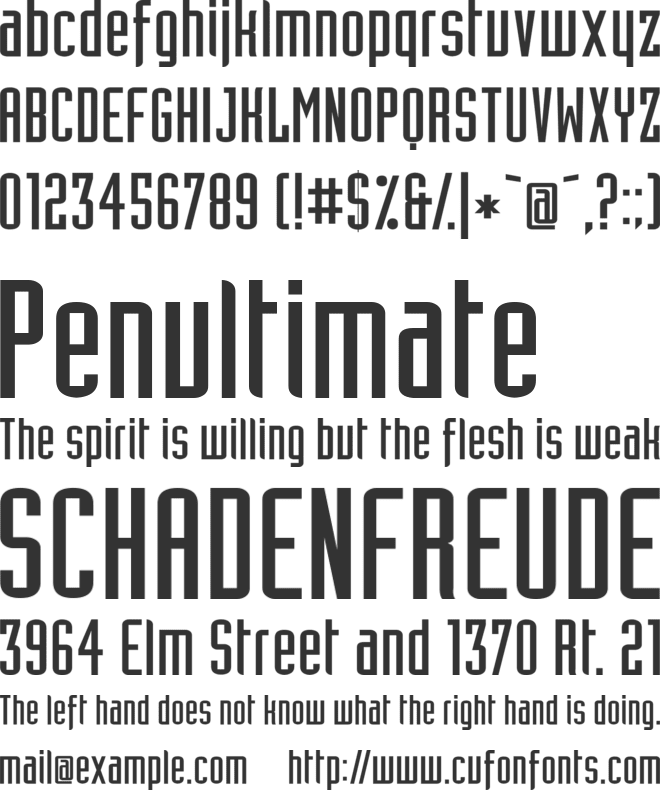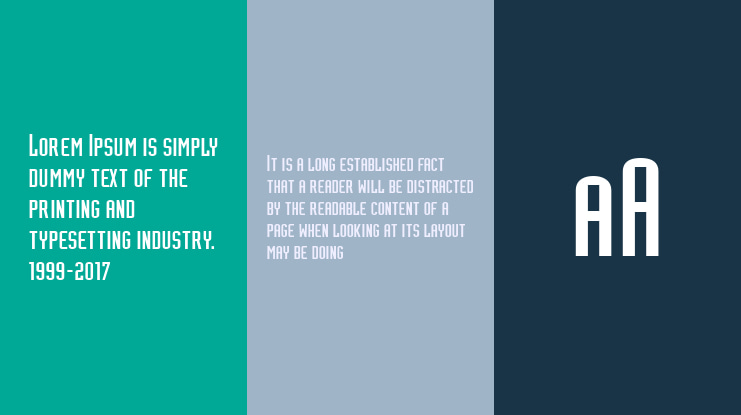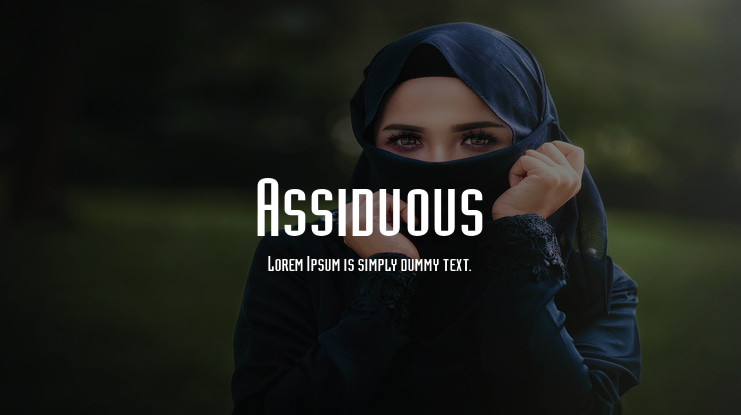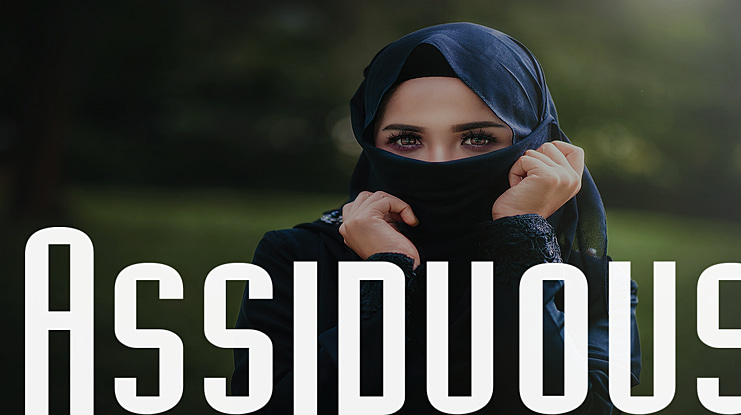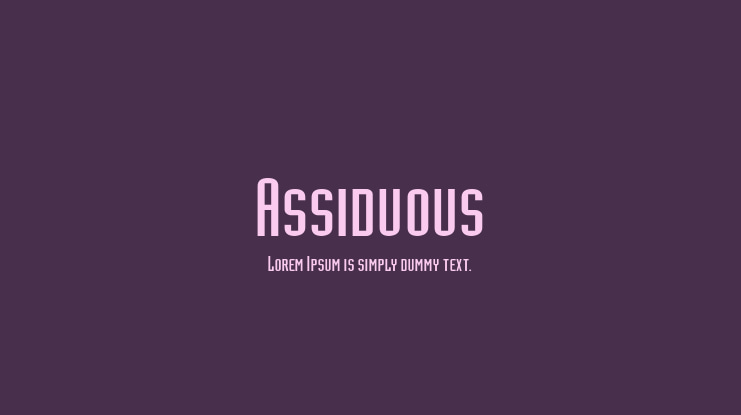
Assiduous Font Family
Assiduous is designed to mimic the font used on the BBC's Doctor Who books and videos. Assiduous was originally created in Acorn format by Peter Blake.
Created by Peter Blake. Adapted for PC & Macintosh by Nick Smale.
Created by Nick Smale, based on Assiduous by Peter Blake & Nick Smale